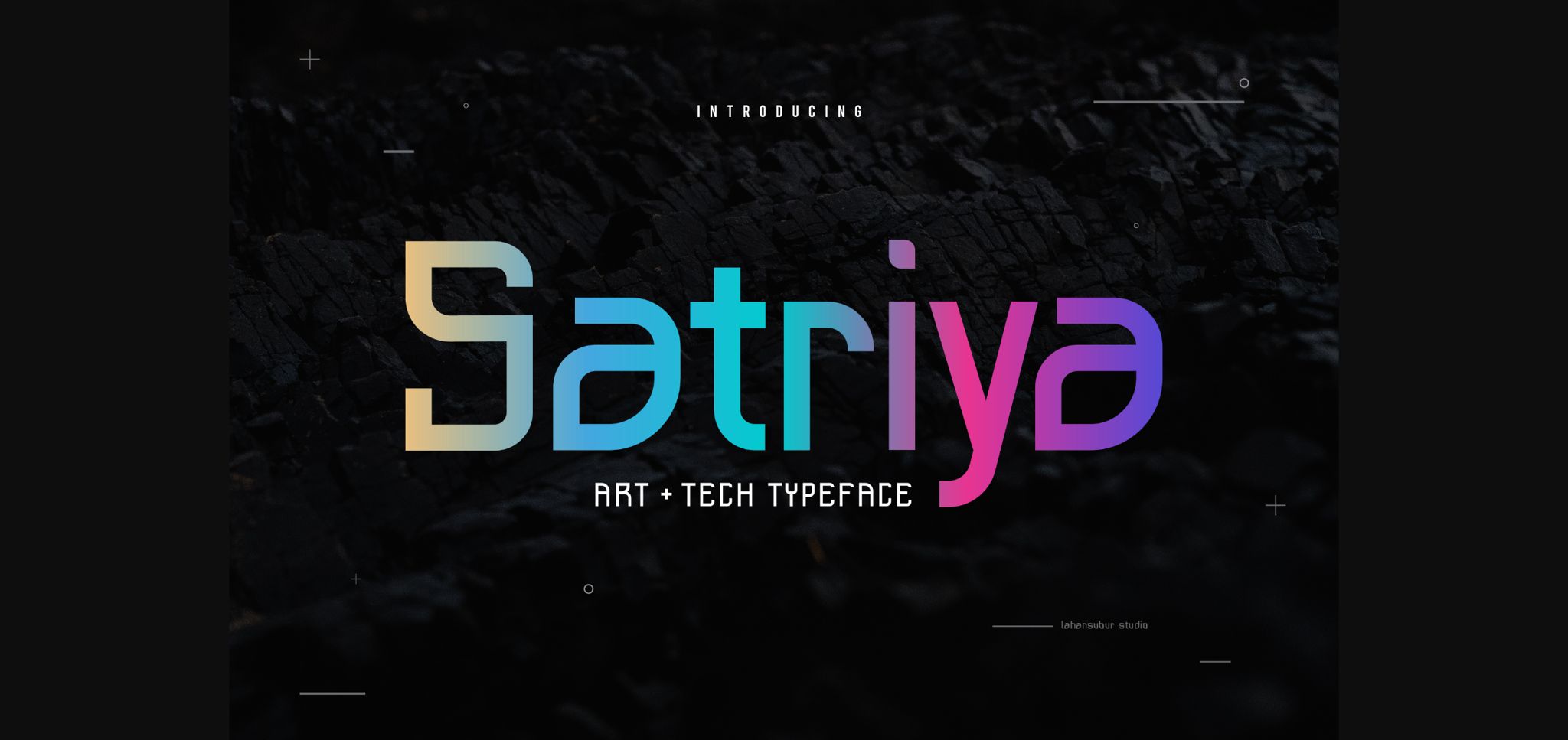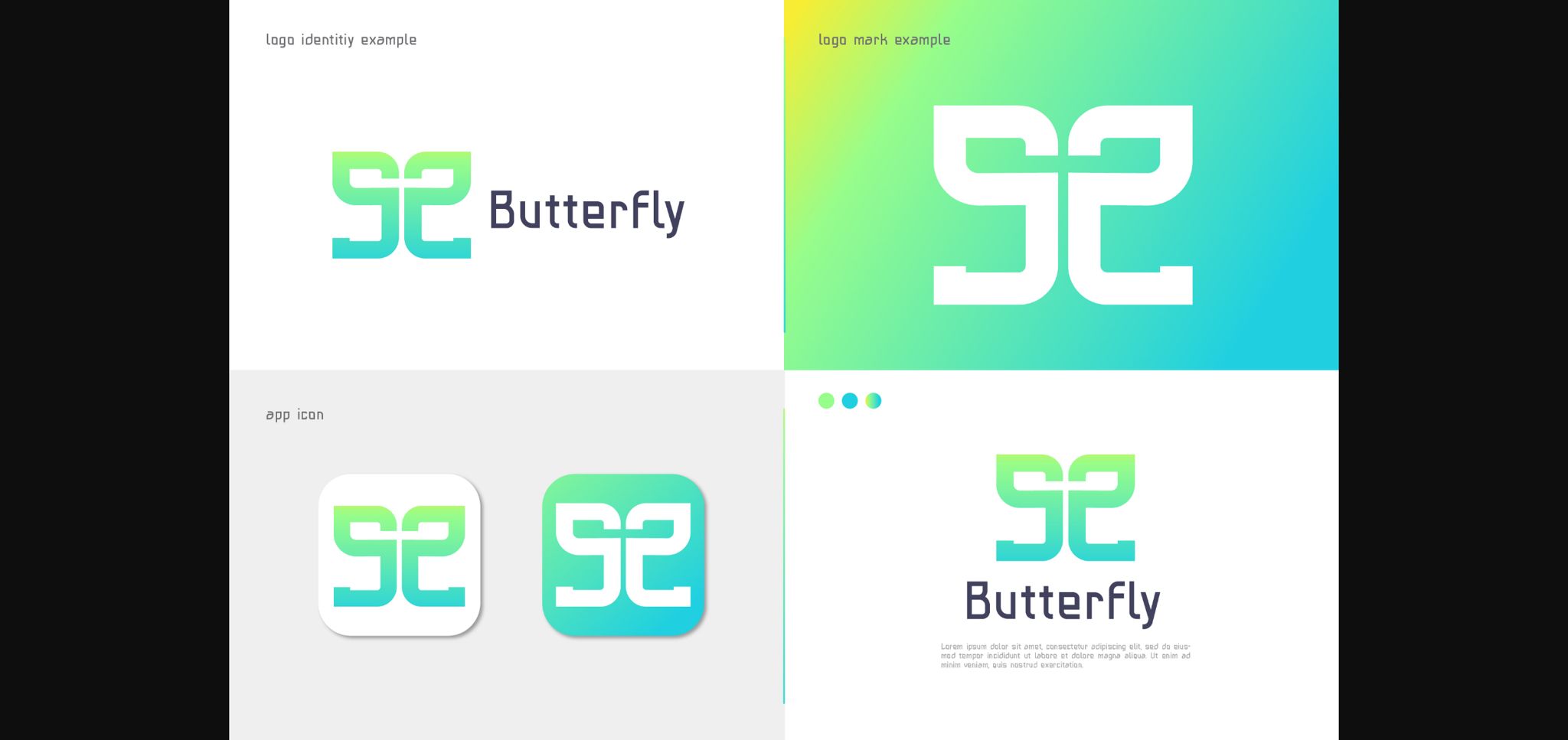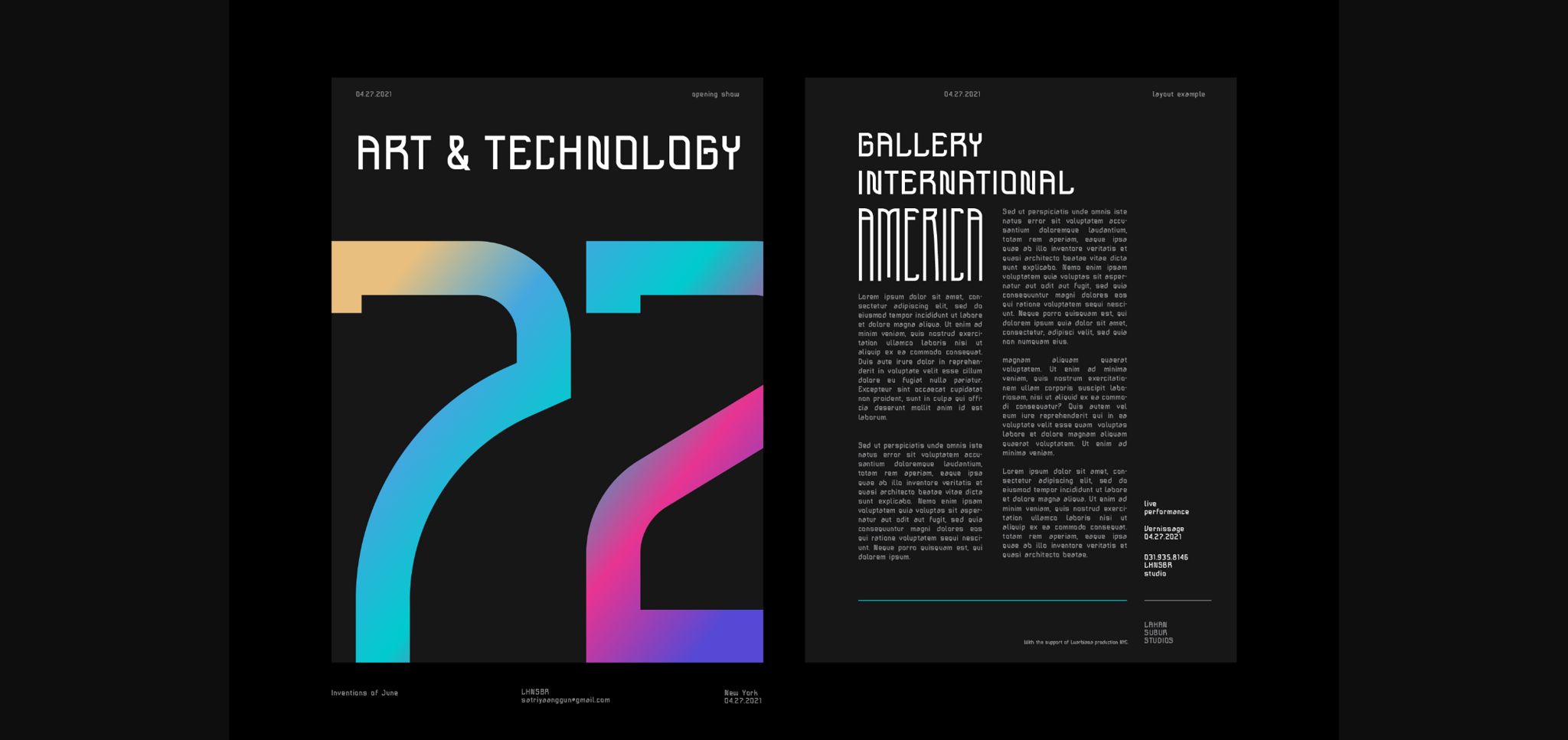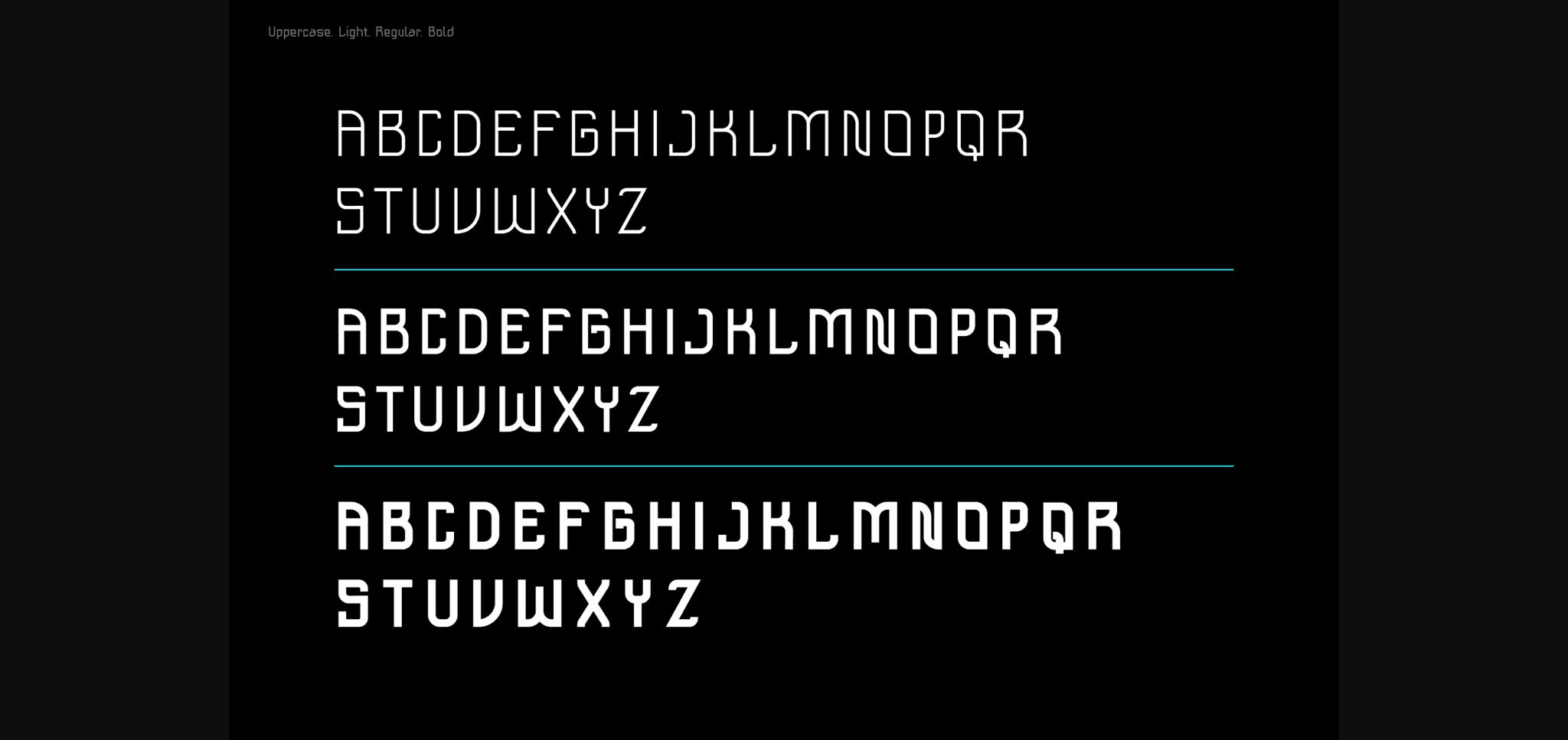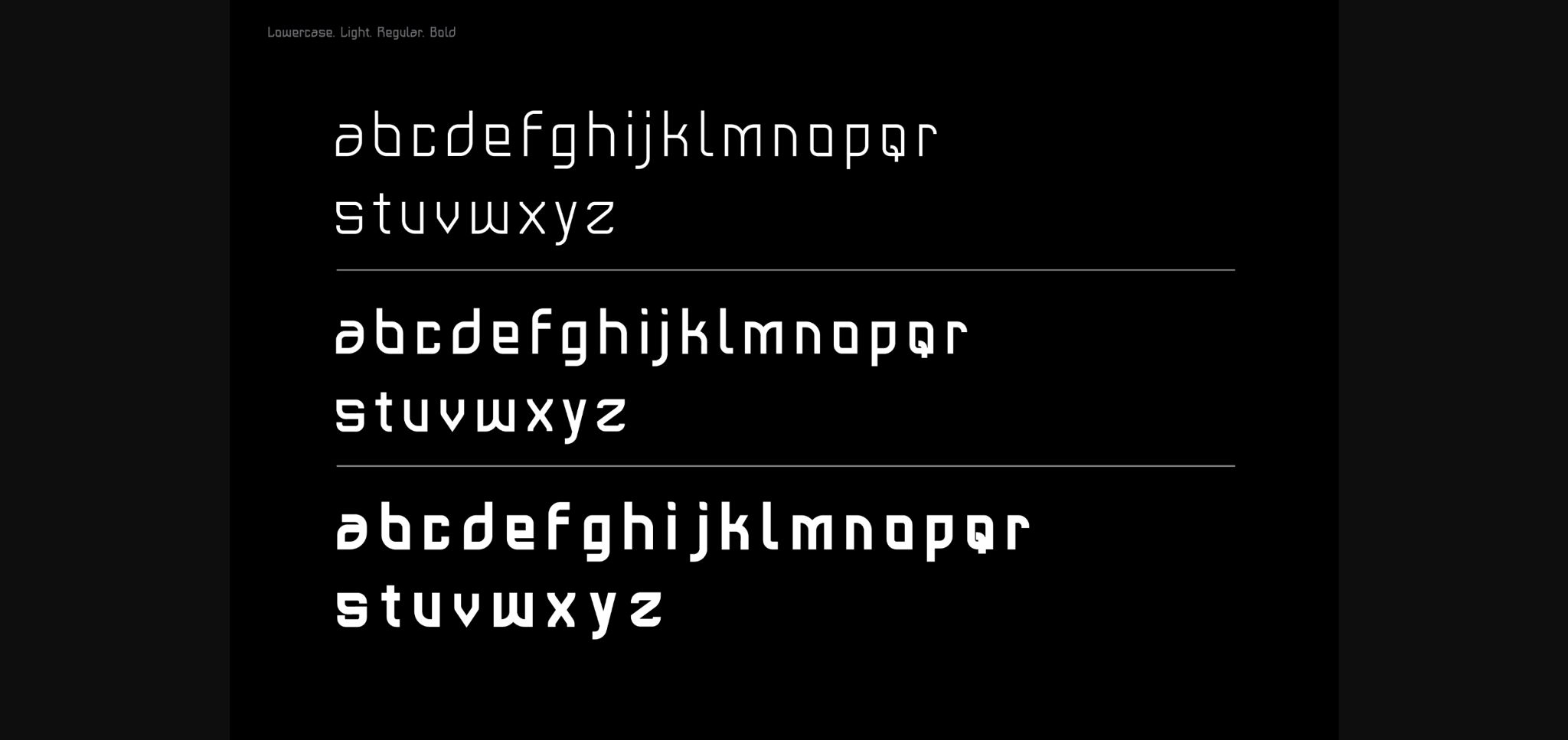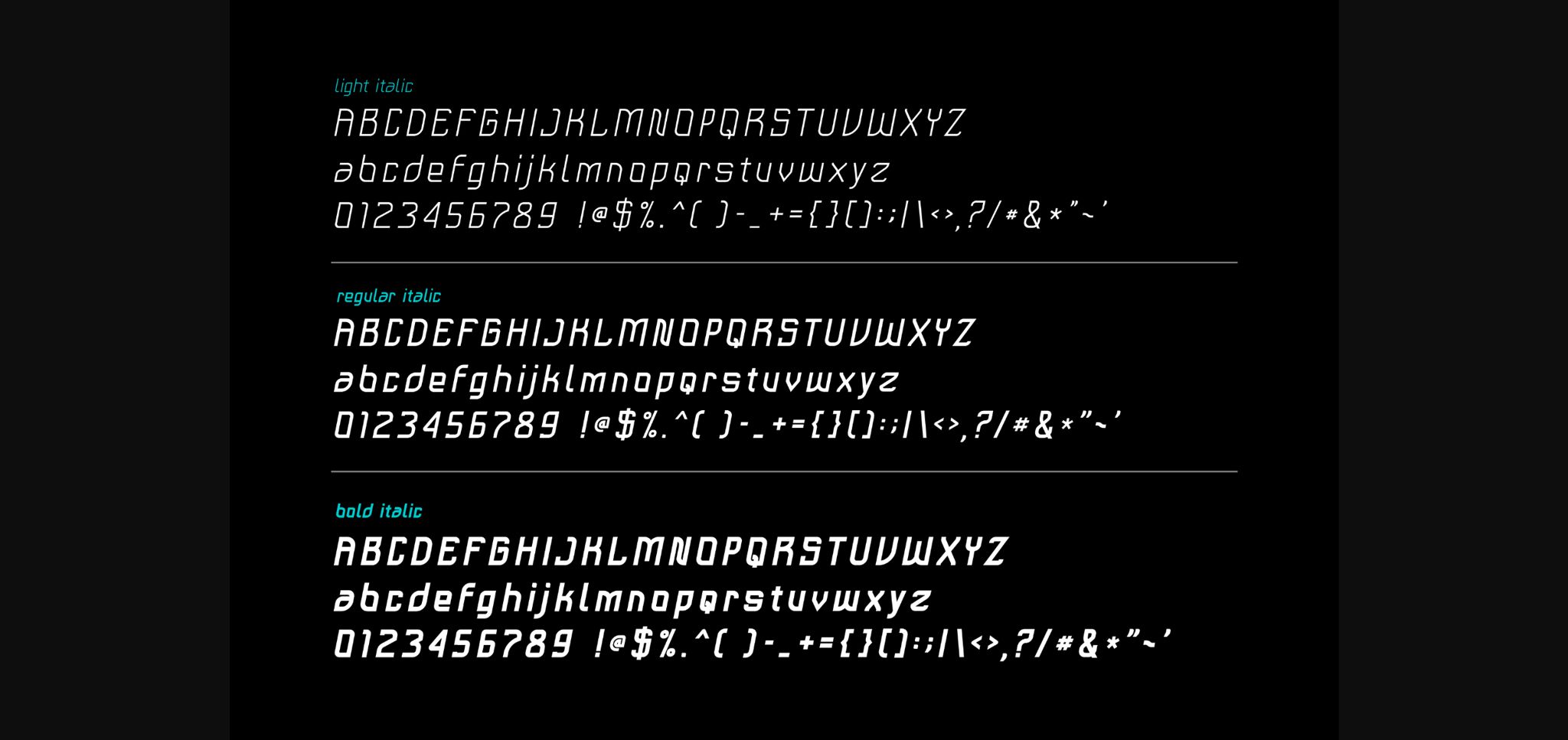
About Satriya Font
Satriya is a unique sans serif font. It will add a modern touch to your designs. It will elevate a wide range of design projects to the highest level, be it branding, headings, wedding designs, invitations, signatures, logos, labels, and much more!